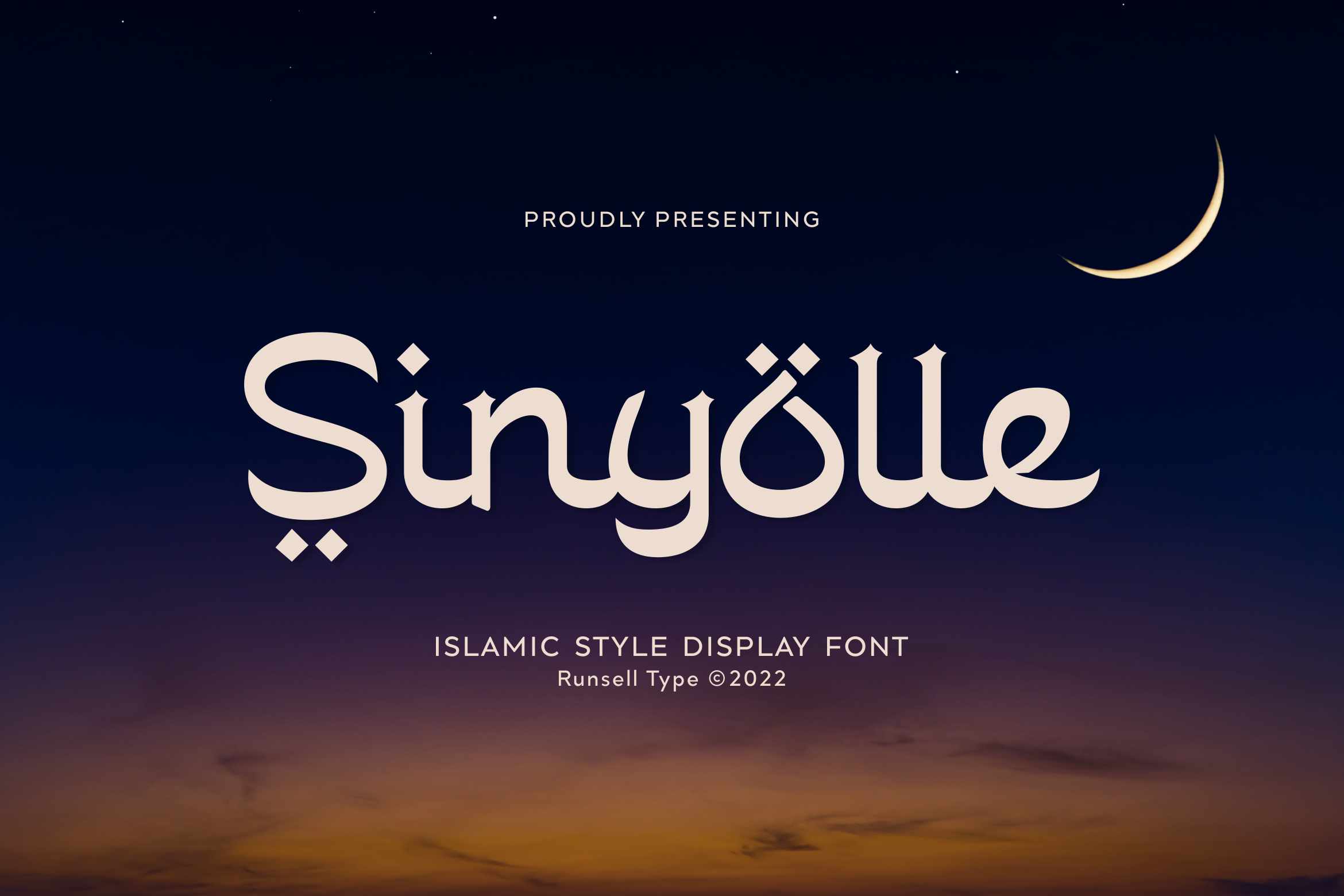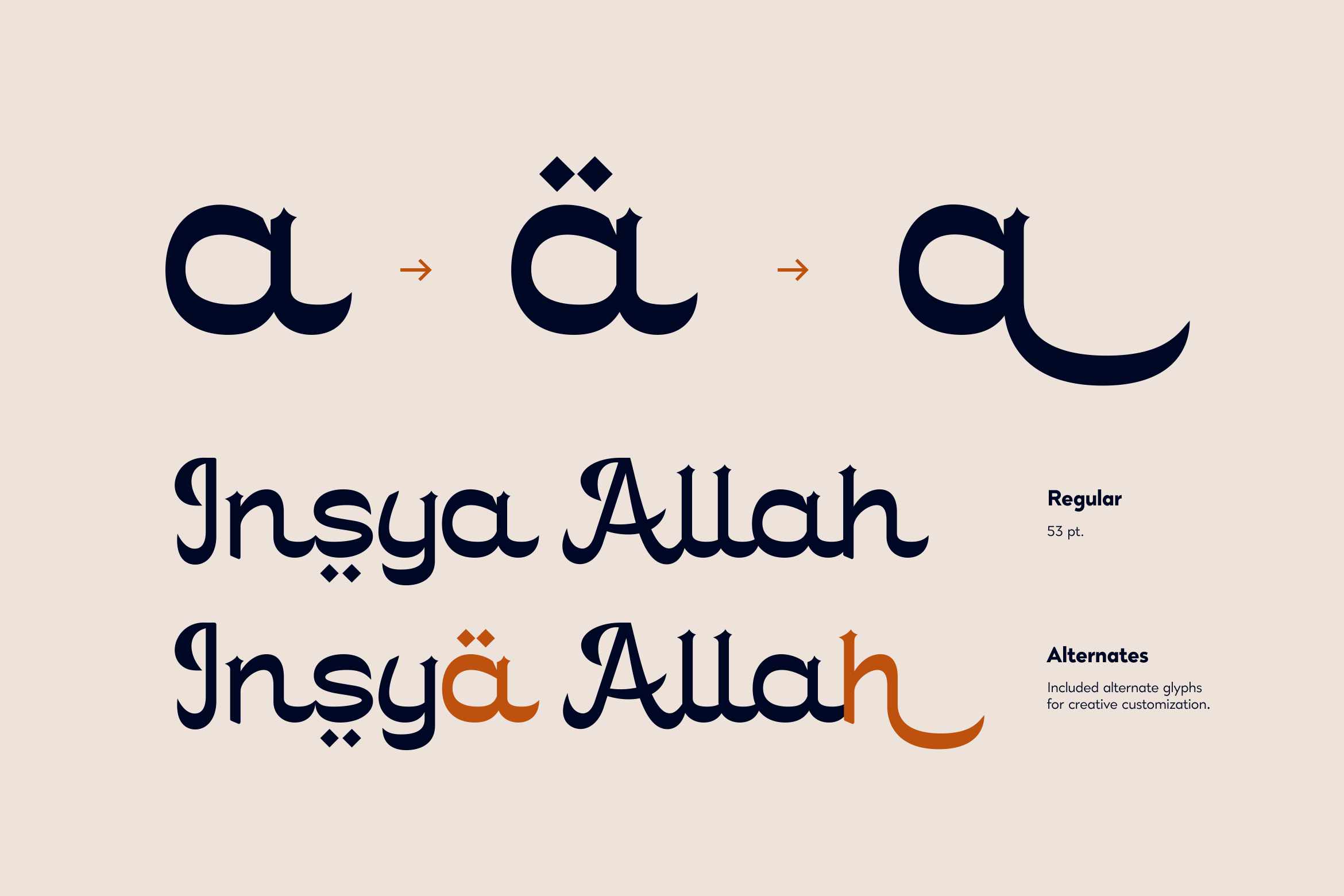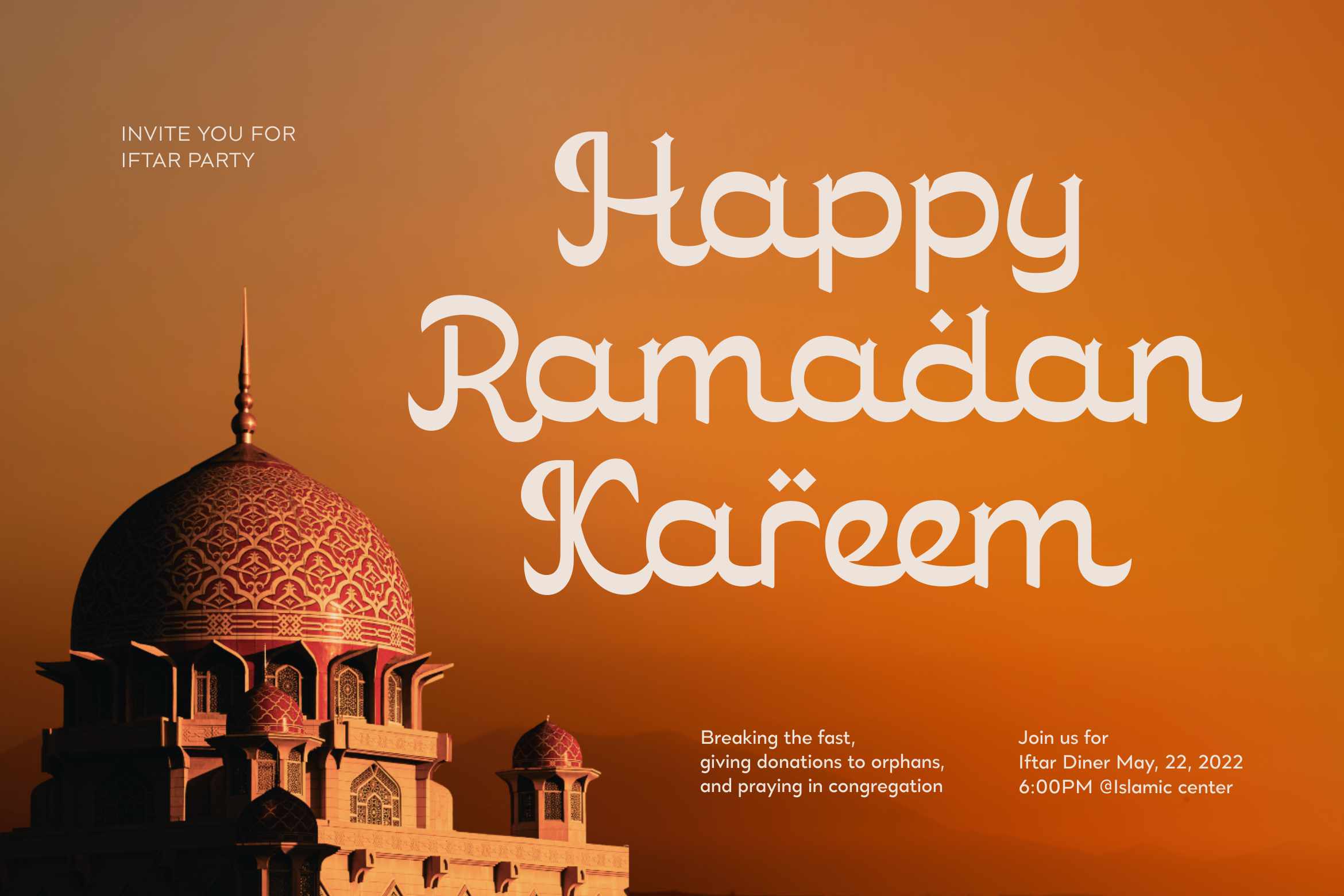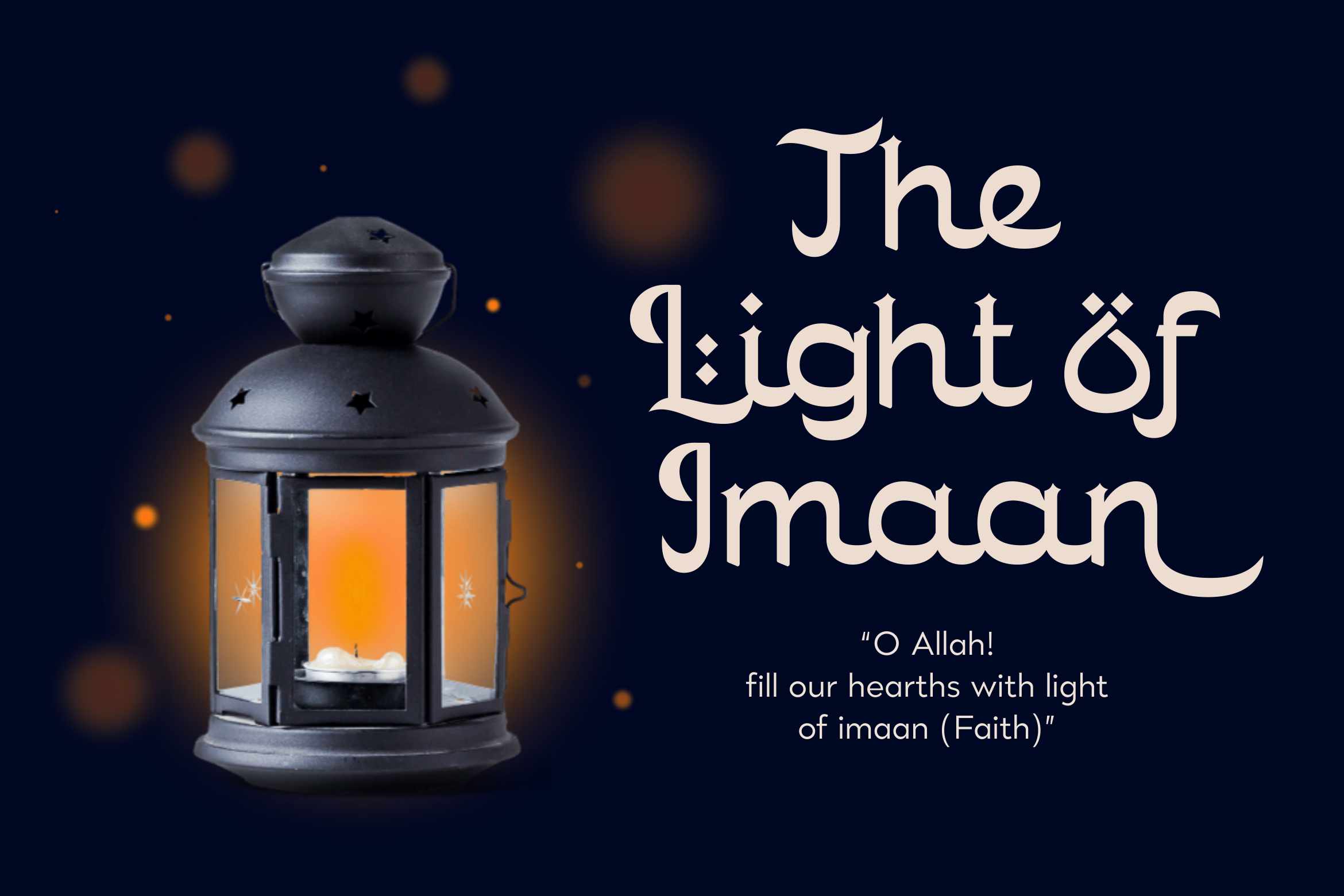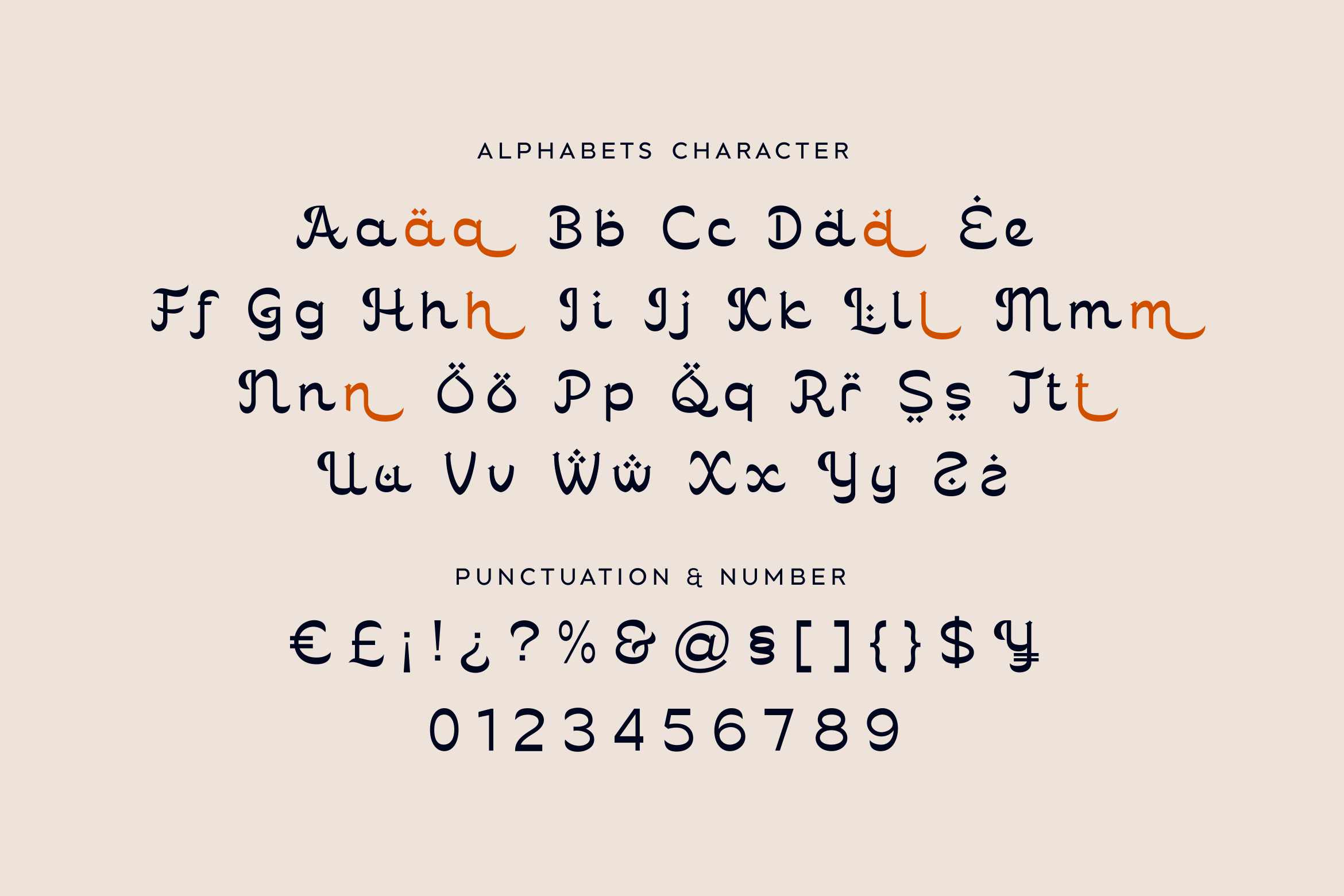
Sinyolle is a refined Islamic display font that brings a sense of warmth and spirituality to any design. With its unique ligatures and soft, curved strokes, Sinyolle combines modern letter construction with elegant Middle Eastern influences. The font features alternates with ornamental forms, perfect for expressing Islamic phrases, quotes, or celebrations with artistic flair.
Designed for branding, editorial headlines, Ramadan campaigns, and packaging, Sinyolle maintains high legibility while offering visual richness through alternate glyphs and creative customization. This font is especially suitable for greeting cards, product packaging, social media visuals, and mosque or Islamic community posters.